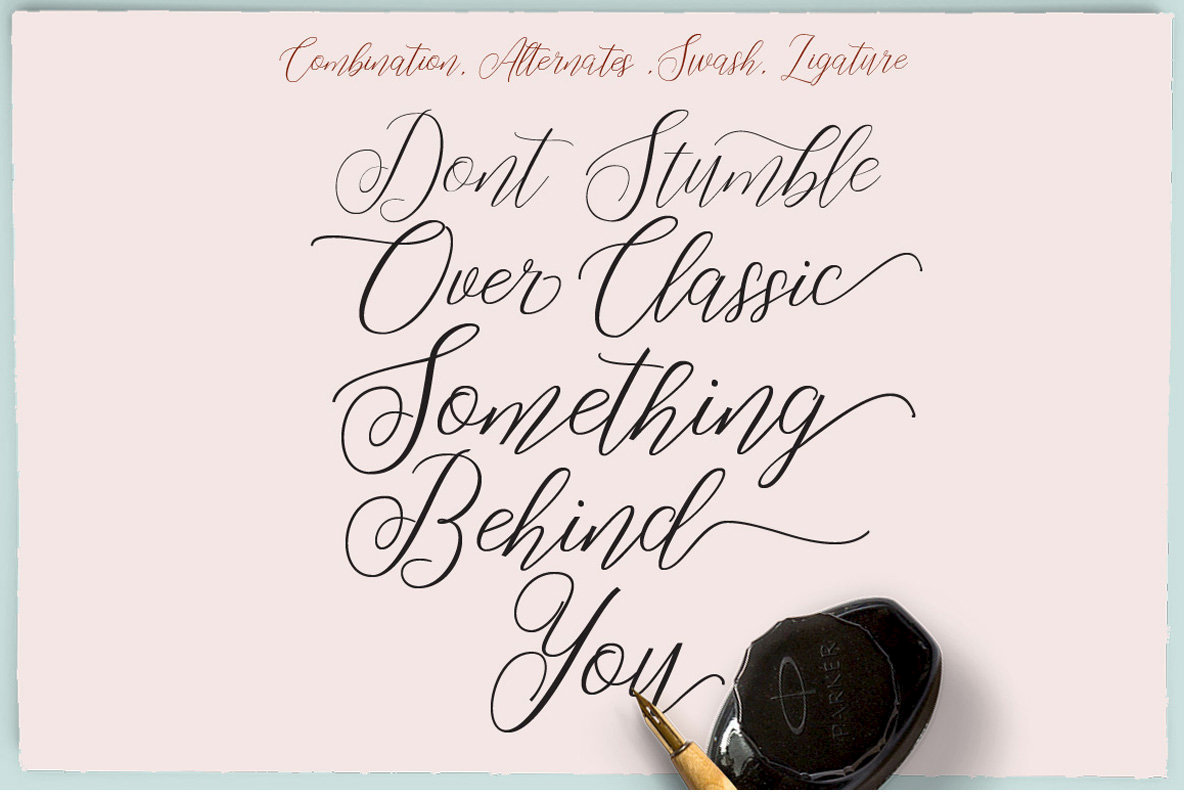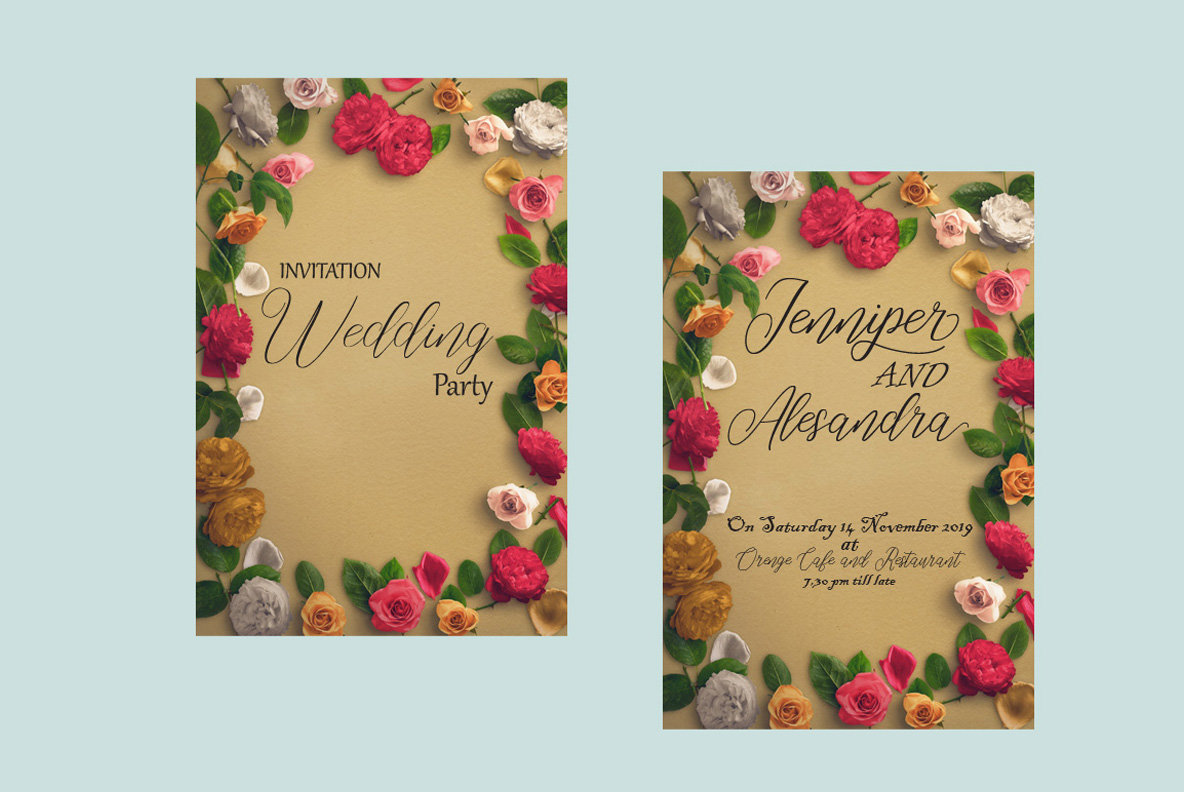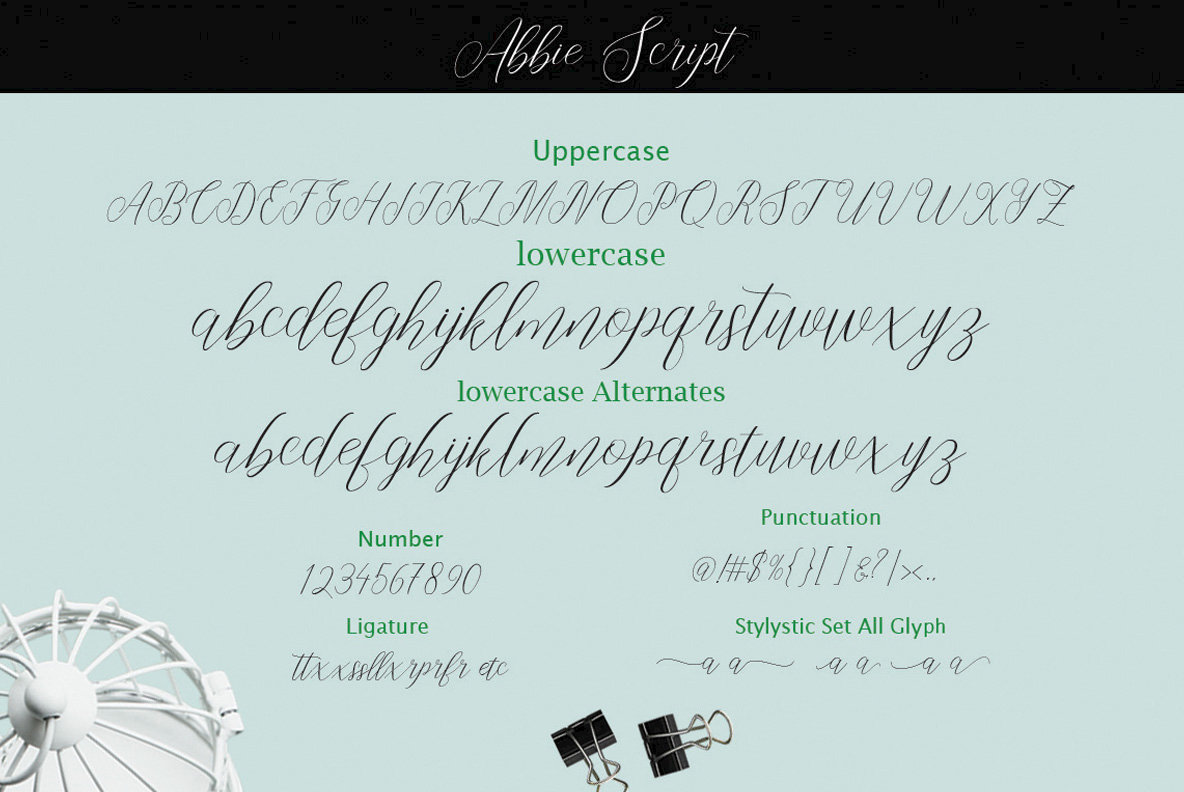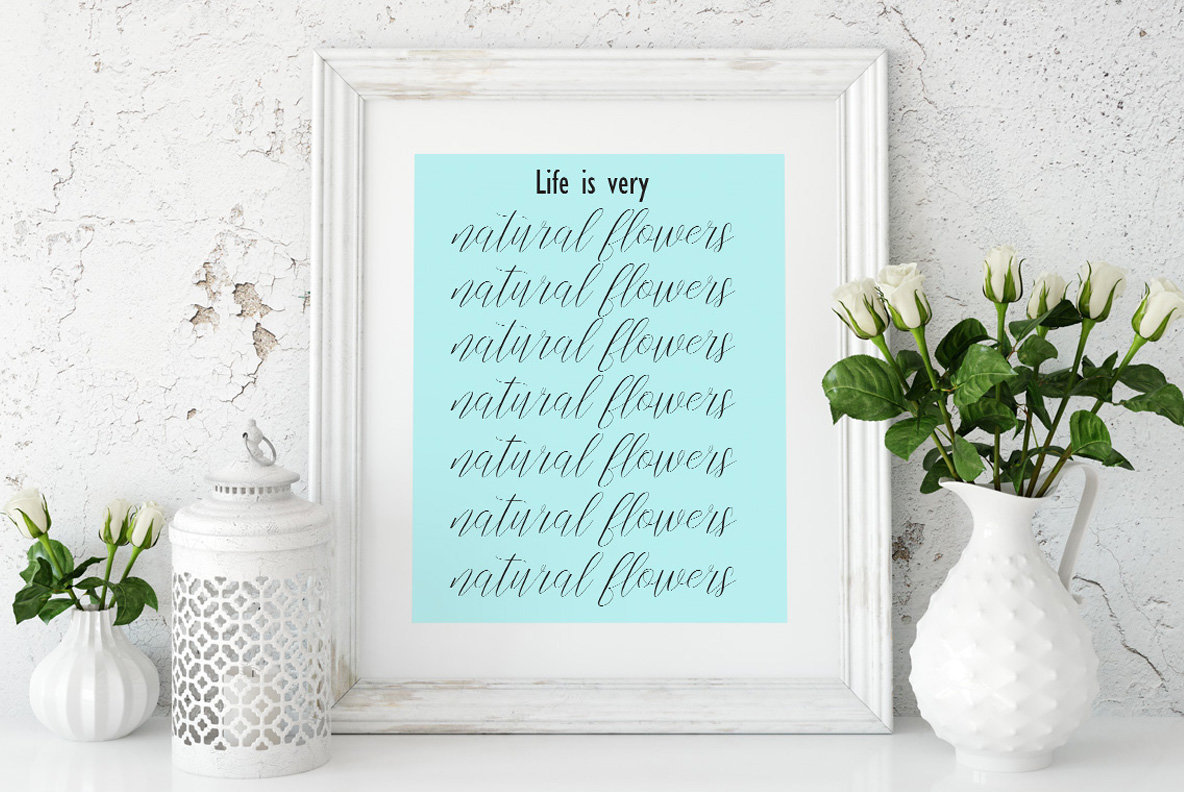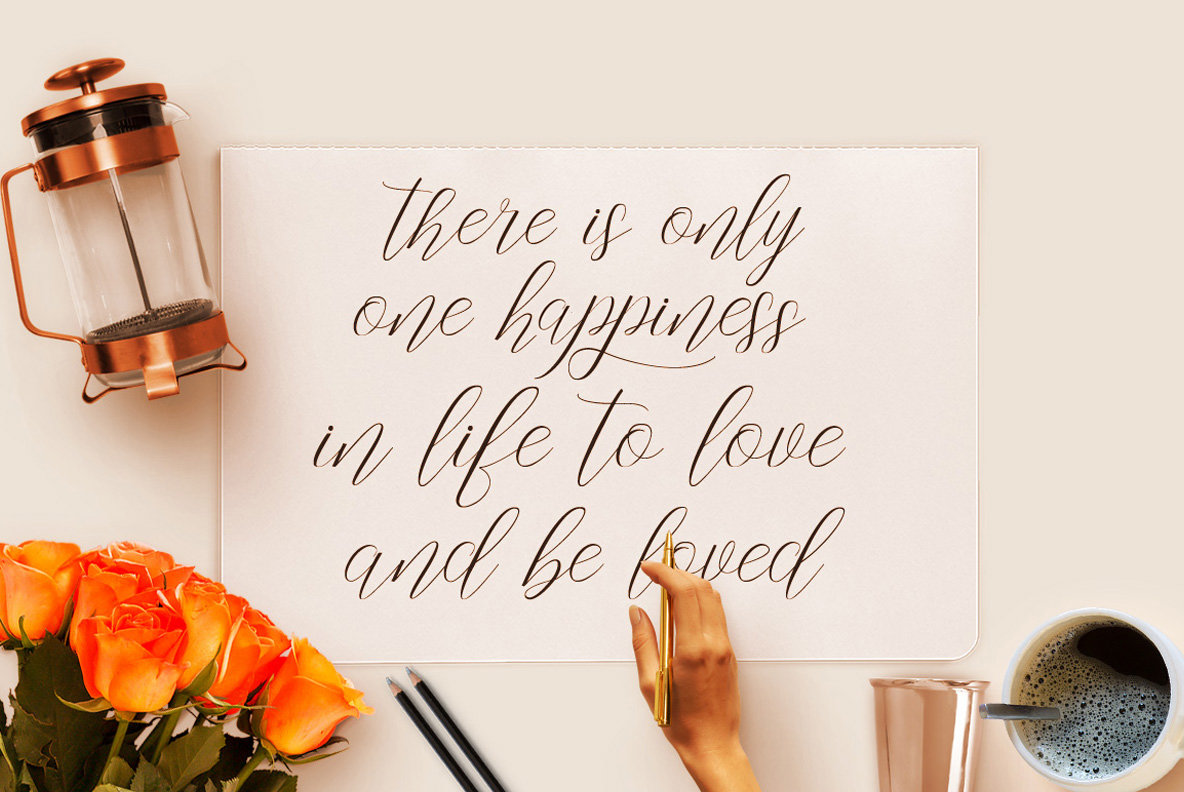
Abbie Font
Abbie Script, designed by Teuku Zulfikar, offers a fusion of hand-lettered calligraphy with a natural flow and beautiful waves. Its unique style features smooth, hand-drawn characters that subtly connect, complemented by elegant swashes accessible through various graphic design software. Abbie Script is ideal for a range of creative projects, from weddings and invitations to branding and business cards. Its versatility also makes it suitable for typography art and modern design books. Access to OpenType features such as stylistic alternates requires software support from programs like Adobe Illustrator or Microsoft Word.Abbie Script: Hand Lettered Elegance